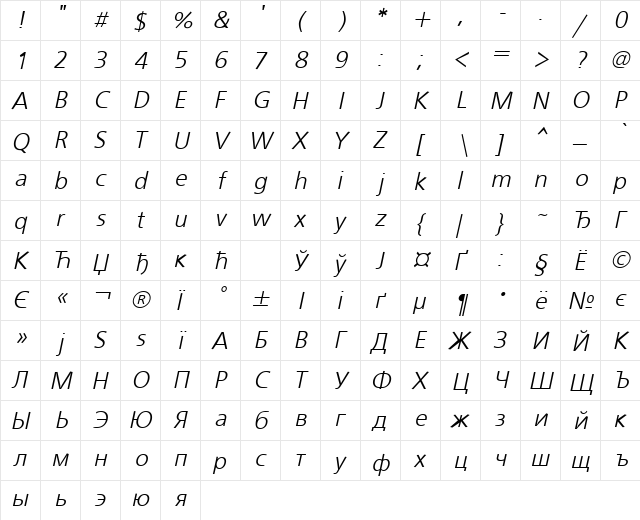
UkrainianFreeSet Italic Font Preview
UkrainianFreeSet Italic
Design Context for UkrainianFreeSet Typeface
UkrainianFreeSet offers clean, dependable letterforms without strong stylistic allegiance, making it a practical choice for designers who need flexibility. The dynamic lean of this cut emphasises speed and emphasis in any layout.